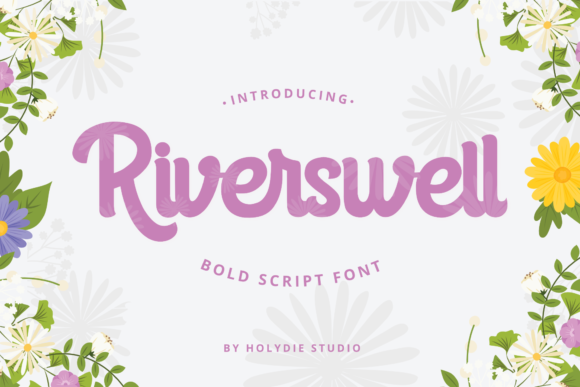
Journey into the world of distinctive typography with Riverswell Font, a creation of Holydie Studio. This captivating script font family exudes a charm that will leave an indelible mark on your designs.
Riverswell's bold letters possess an undeniable readability, making them perfect for grabbing attention and conveying your message with clarity. Whether you're crafting logos, branding elements, or eye-catching posters, Riverswell's bold strokes will leave a lasting impression.
Explore the boundless possibilities of Riverswell's versatility. Its fluid lines lend themselves effortlessly to apparel designs, adding a touch of elegance and individuality to your t-shirt or clothing line. Unleash your creativity and create designs that speak volumes, capturing the essence of your brand's unique identity.
Step into the spotlight and make a statement with Riverswell. Let your words dance across the page, captivating your audience with their undeniable charisma. Whether you're designing advertisements, magazine layouts, or social media graphics, Riverswell will elevate your creations to new heights.
Don't settle for ordinary. Embrace the extraordinary with Riverswell Font. Experience the power of typography that captivates, engages, and leaves an everlasting impact.